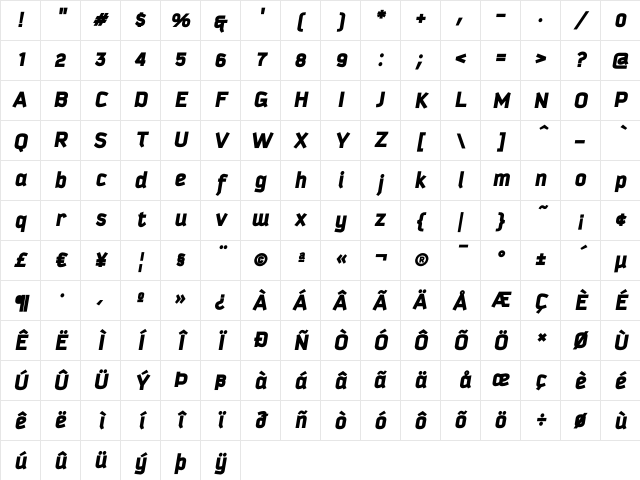
Kautiva Pro Black Italic Free Font
Kautiva Pro Black Italic
Foundry: Alejandro Paul y Alfredo Graziani
Designer: Alejandro Paul y Alfredo Graziani
Design Context for Kautiva Pro
Kautiva Pro is a composed and adaptable typeface that performs quietly and consistently across a wide range of design contexts. The slanted form adds forward momentum and visual energy.
Who designed the Kautiva Pro Black Italic font?